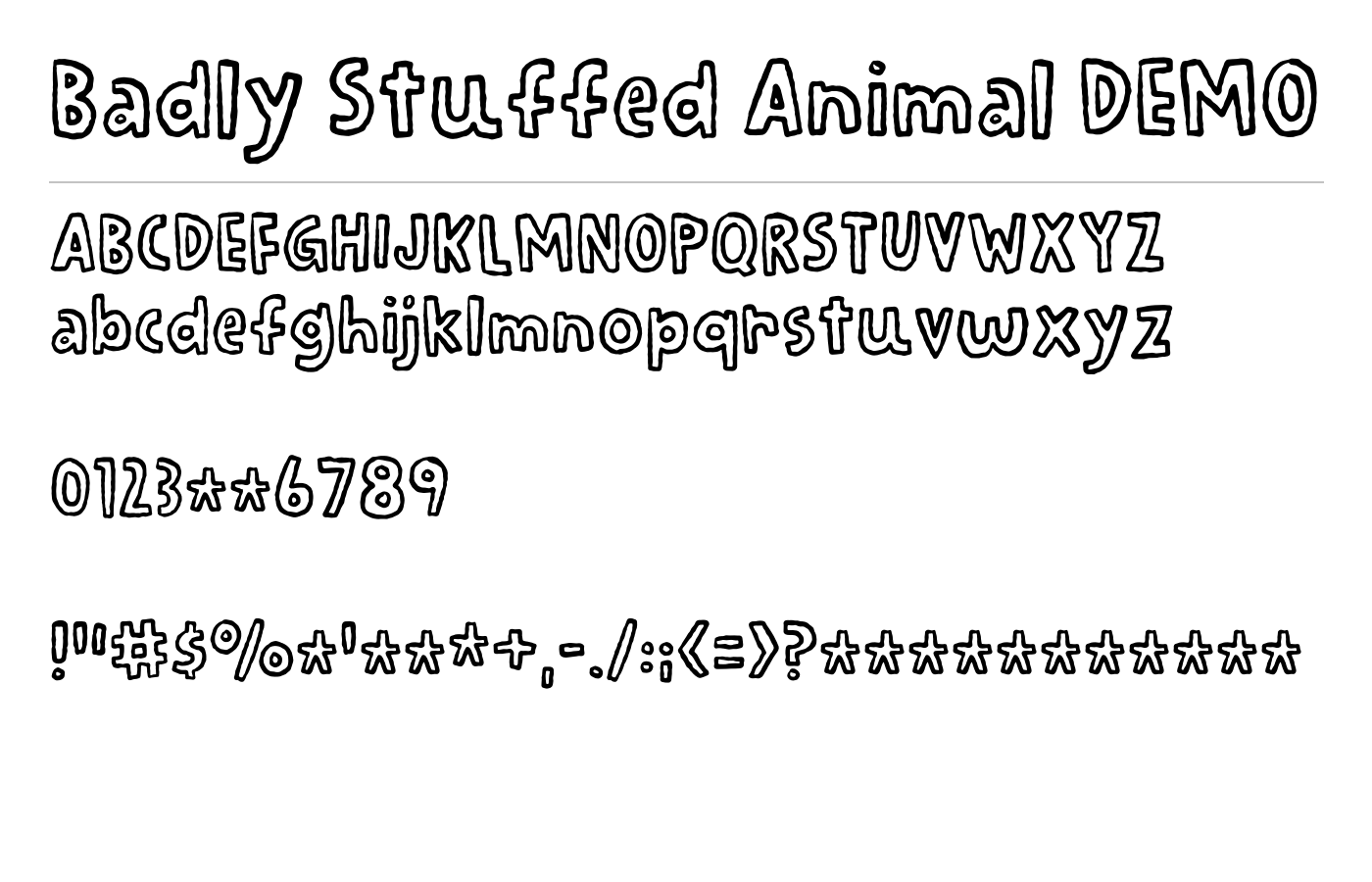
Badly Stuffed Animal DEMO is a playful, hand-drawn sans serif font with an irregular, bouncy feel that mimics the uneven stitching of a homemade stuffed toy. Its medium weight and casual shapes with slightly wobbly lines create a friendly and informal vibe, perfect for fun, child-focused, or quirky designs. This font works best in logos, posters, and children’s products where a whimsical and approachable style is desired.
Badly Stuffed Animal DEMO Font
About Badly Stuffed Animal DEMO Font